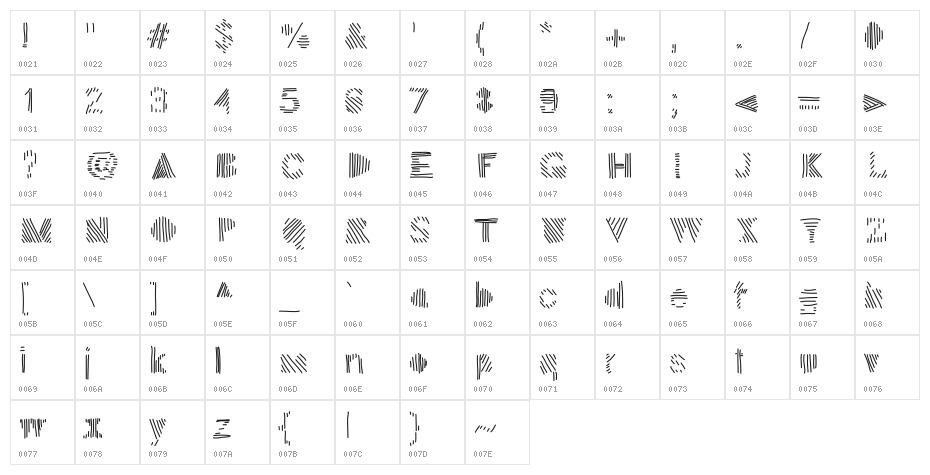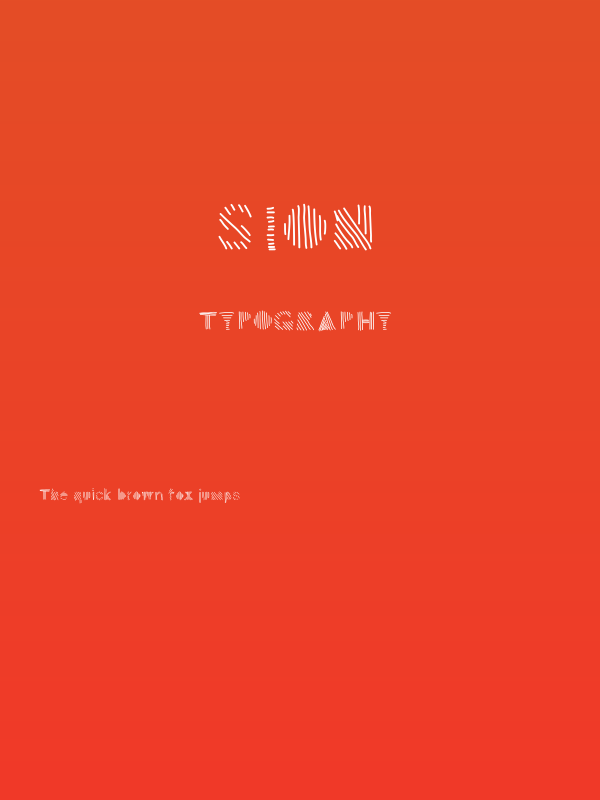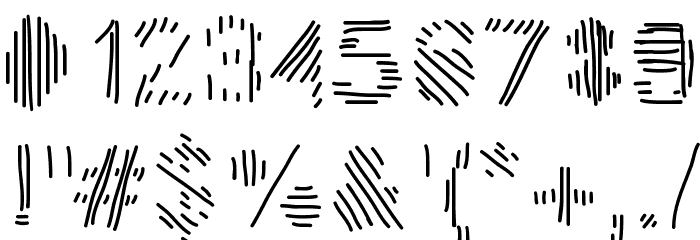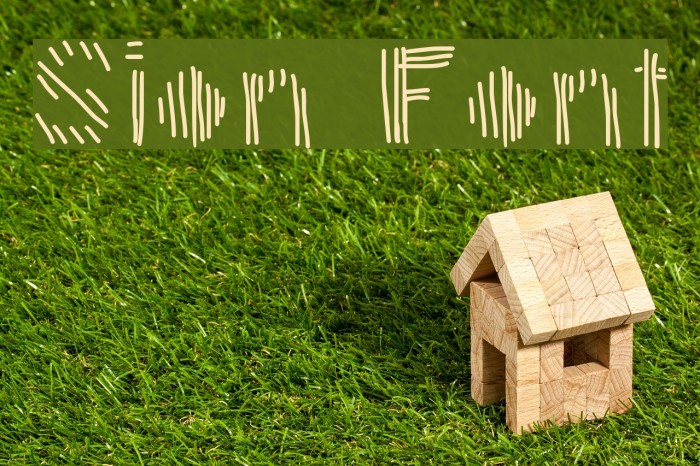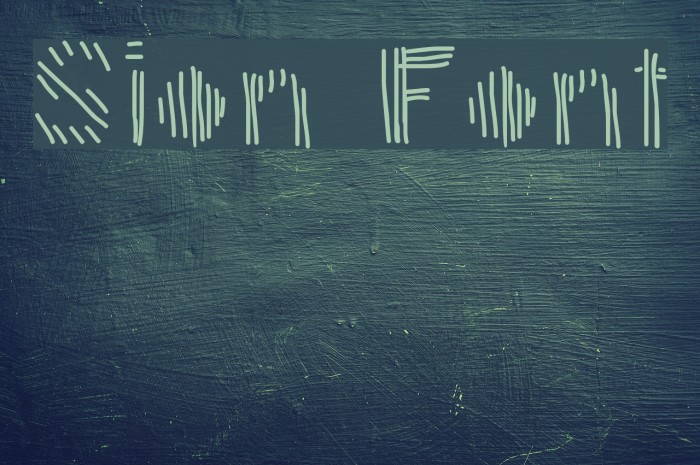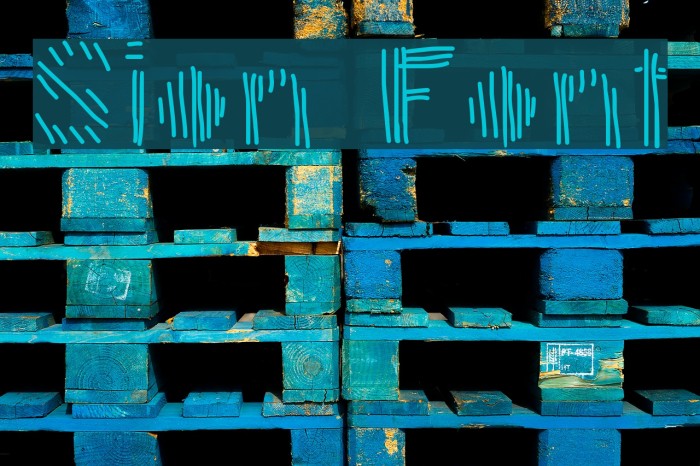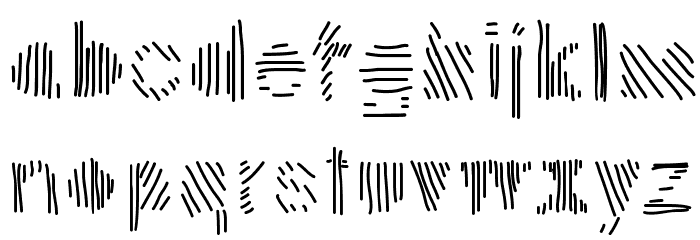
Sion Font
Sion Description
This font features a unique, artistic design characterized by its use of parallel lines to form each character. The lines vary in length and spacing, creating a dynamic and textured appearance. The uppercase and lowercase letters maintain a consistent style, with the lines giving a sense of movement and energy. The numbers and special characters are crafted with the same technique, ensuring a cohesive look across all elements. This font stands out for its creative approach, making it ideal for projects that require a bold and distinctive visual impact.
| Proposed Projects | Ideal for artistic posters, modern branding, album covers, and creative digital media. |